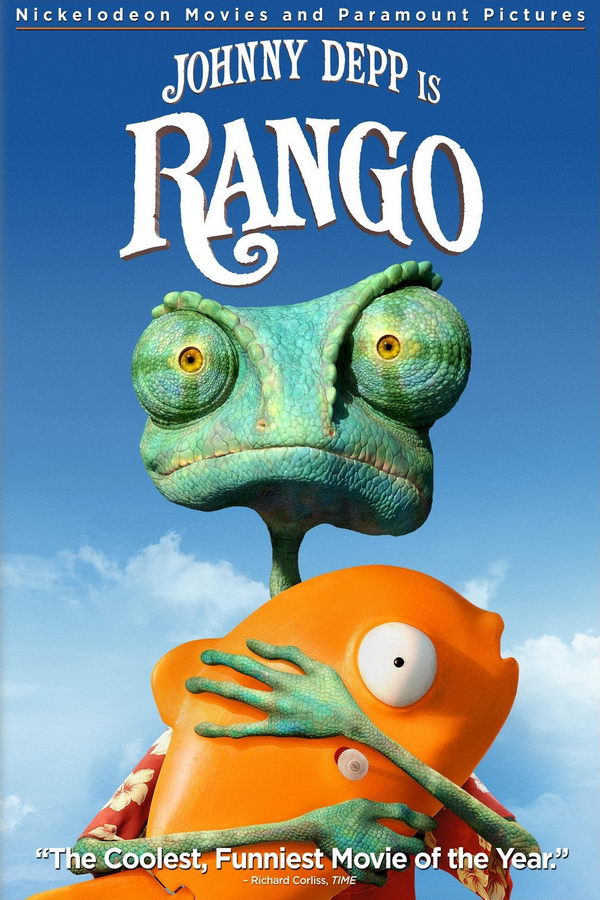
Rango Font
The movie poster of Rango features lettering that closely resembles the Rango Movie font. This font, available in capital letters only, can be downloaded for free from the Fonts Used Section.